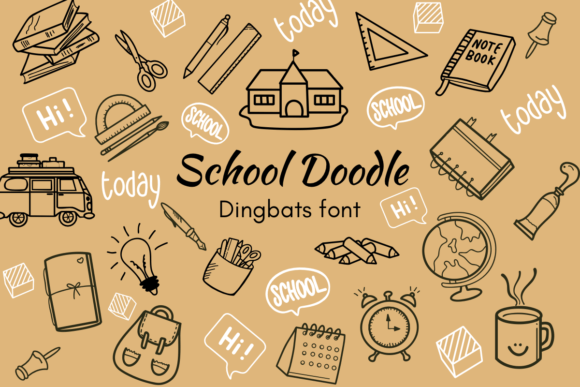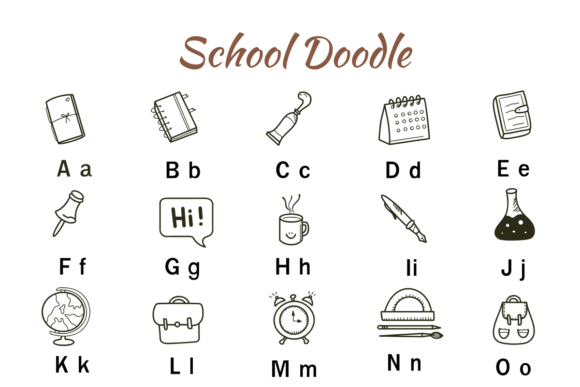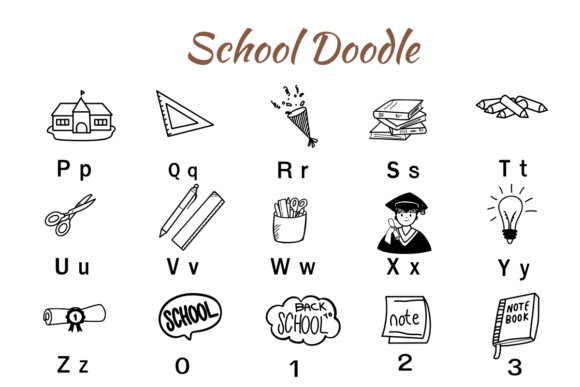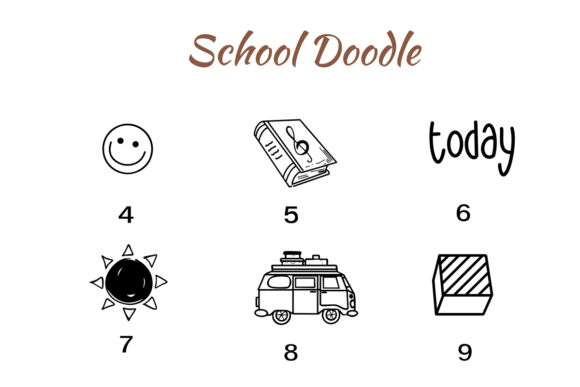
School Doodle Font
About the School Doodle Font
The wait is over! The incredible School Doodle Font is now available for your design toolkit. School Doodle is a dingbats font with an academic theme. This font can enhance your creative projects such as invitations, DIY, crafts, decorations, logos, and many other creative ideas.
School Doodle Font Usage Examples
School Doodle Font Example